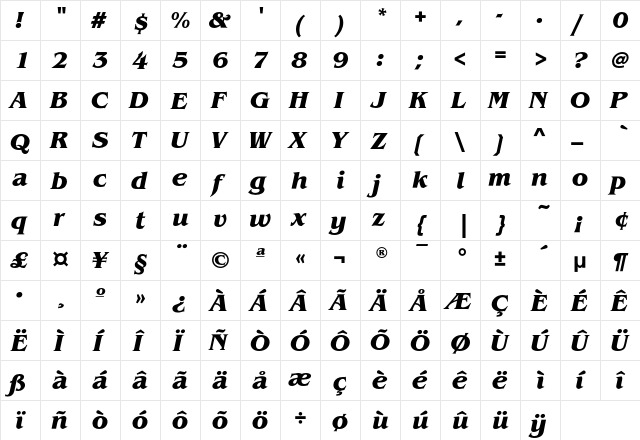
BenguiatEF-BoldItalic Regular Font Preview
BenguiatEF-BoldItalic Regular
BenguiatEF-BoldItalic Regular Font Details
Design Context for BenguiatEF-BoldItalic Typeface
BenguiatEF-BoldItalic offers clean, dependable letterforms without strong stylistic allegiance, making it a practical choice for designers who need flexibility. The dynamic lean of this cut emphasises speed and emphasis in any layout. Its bold stroke weight gives it real presence on the page.